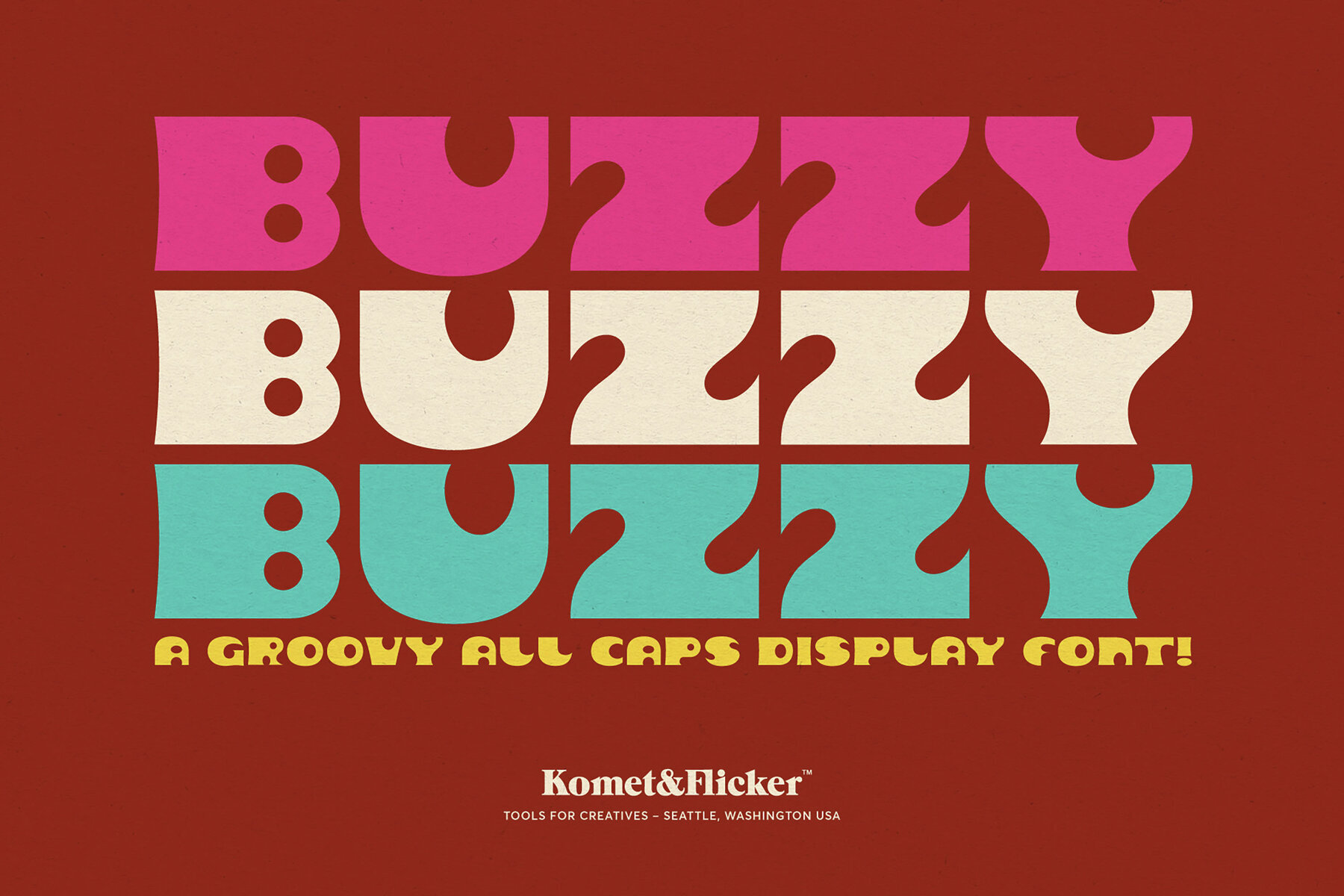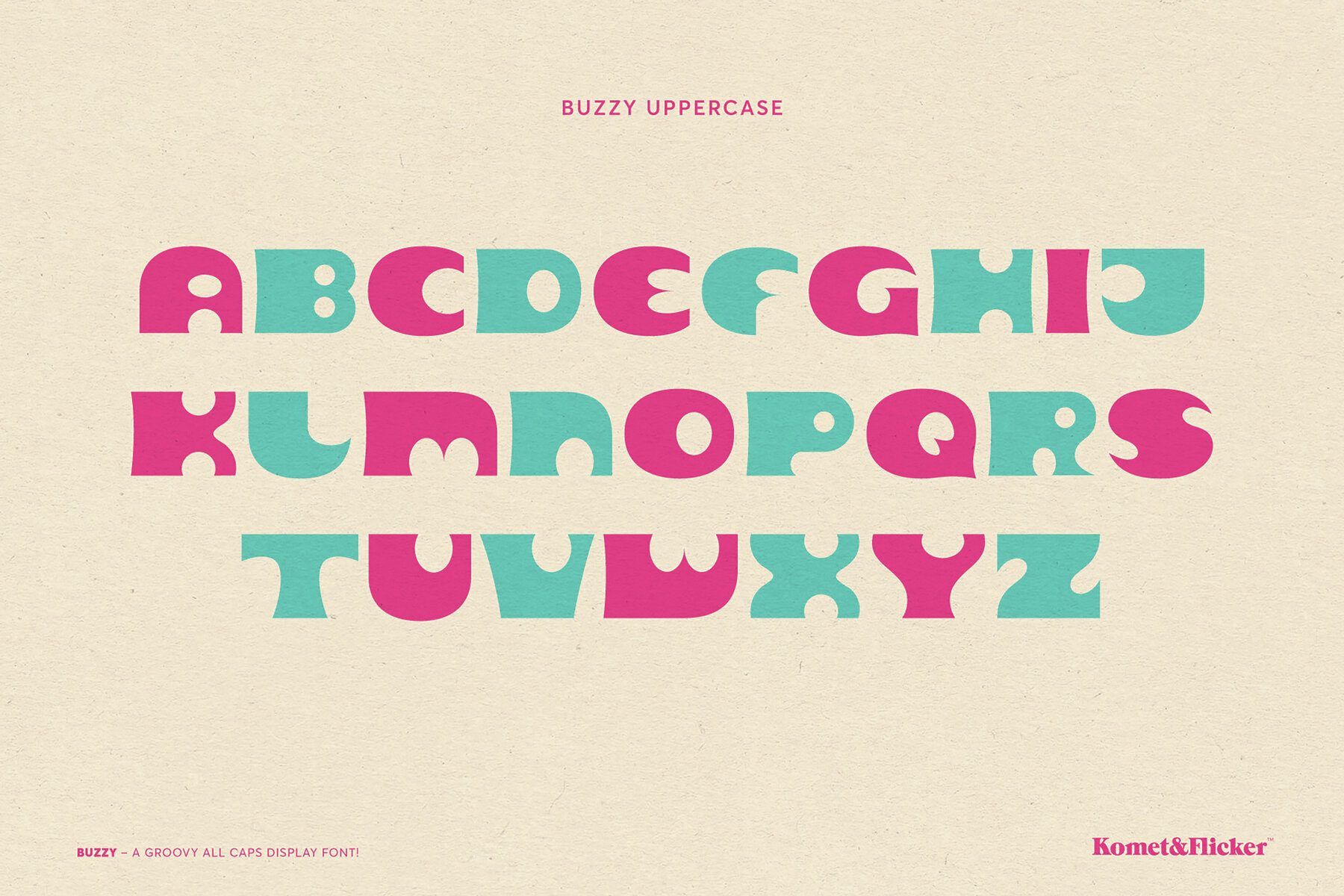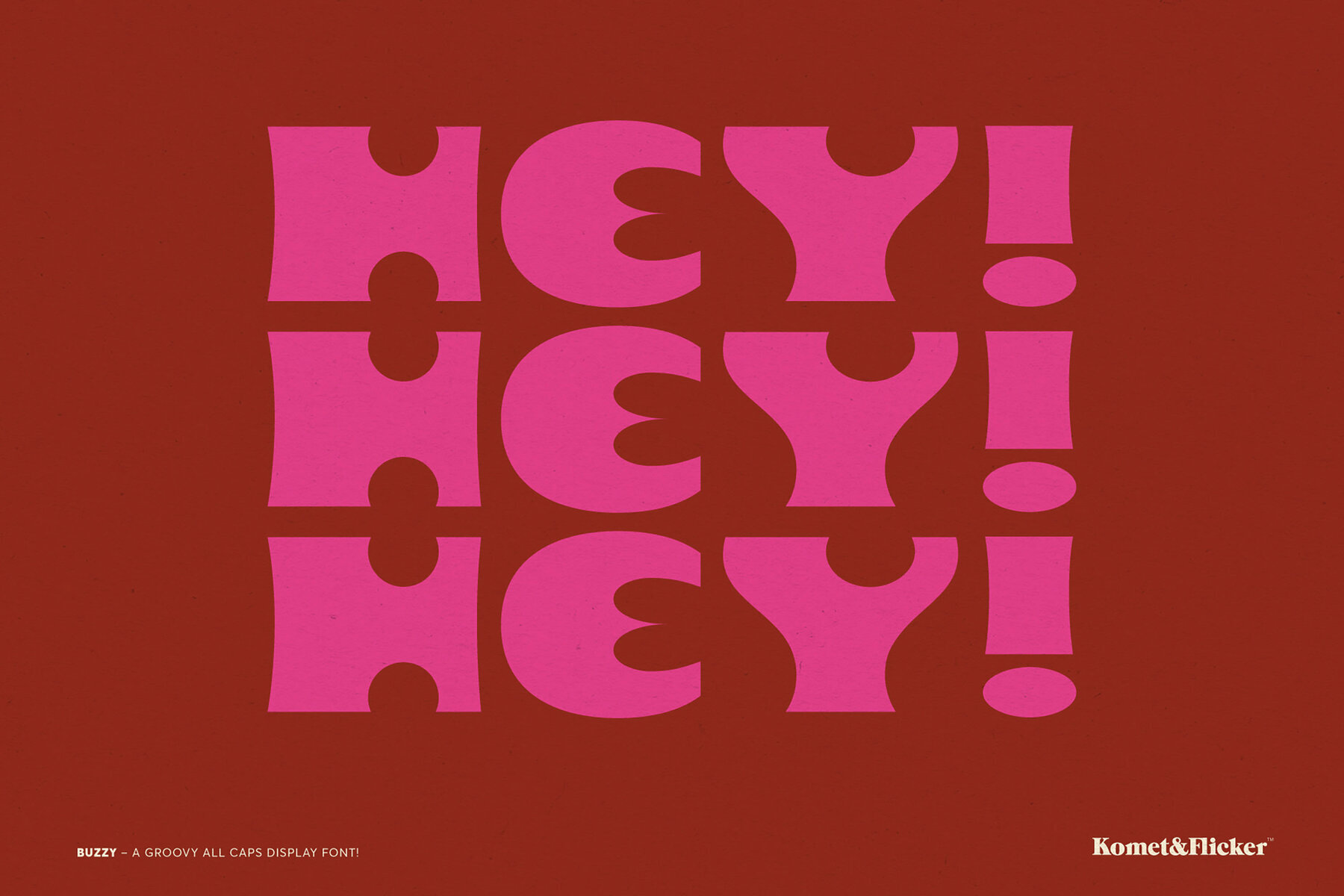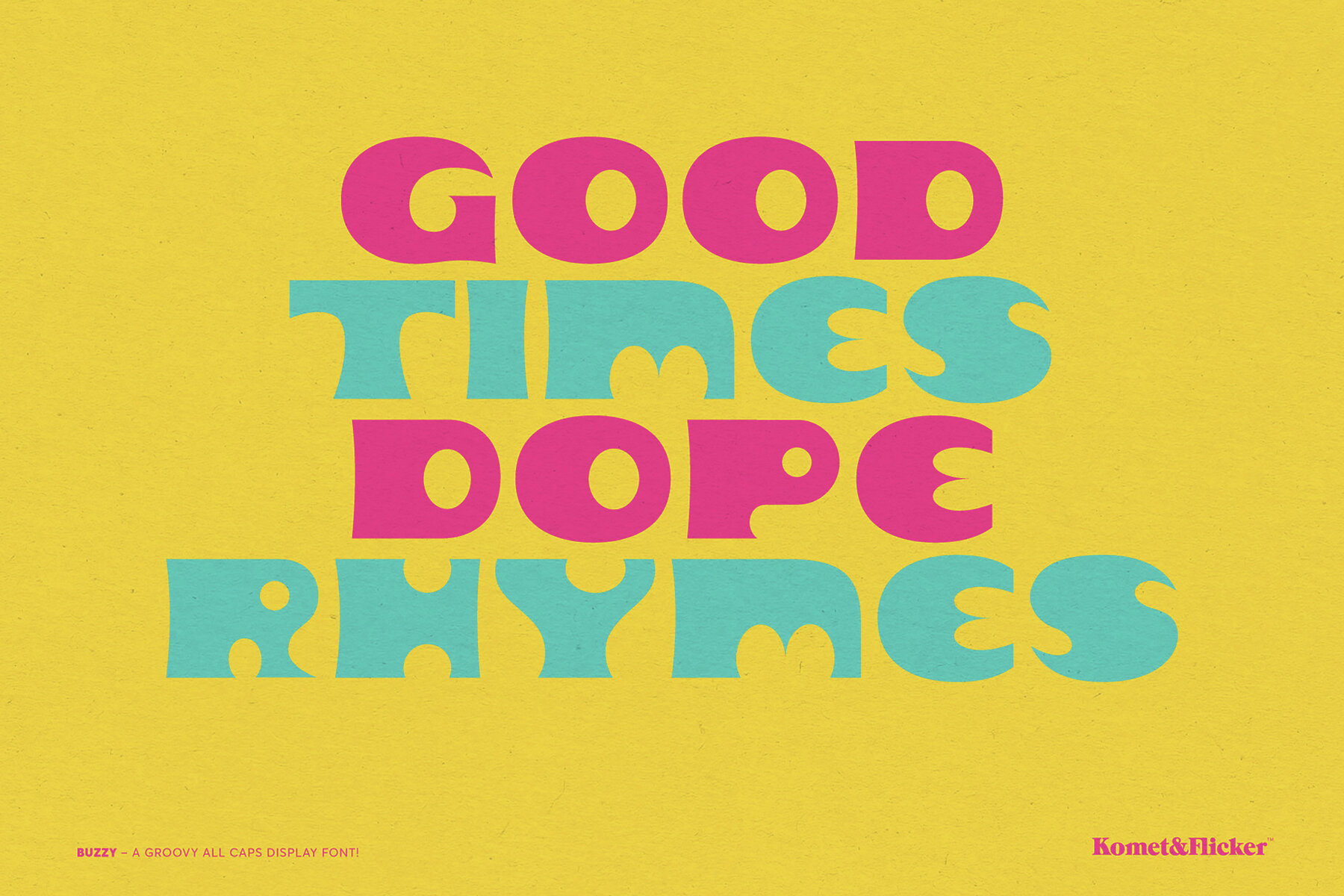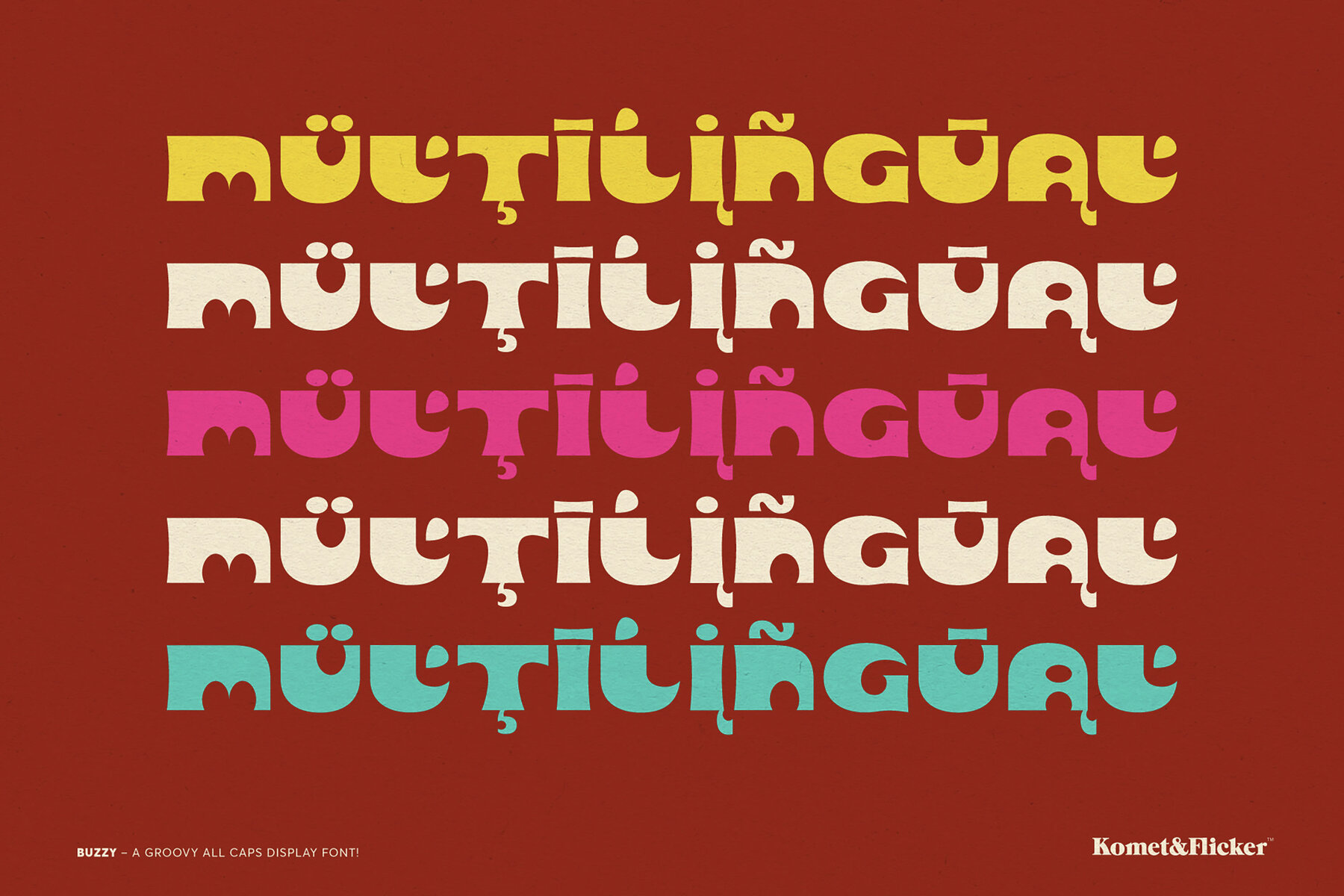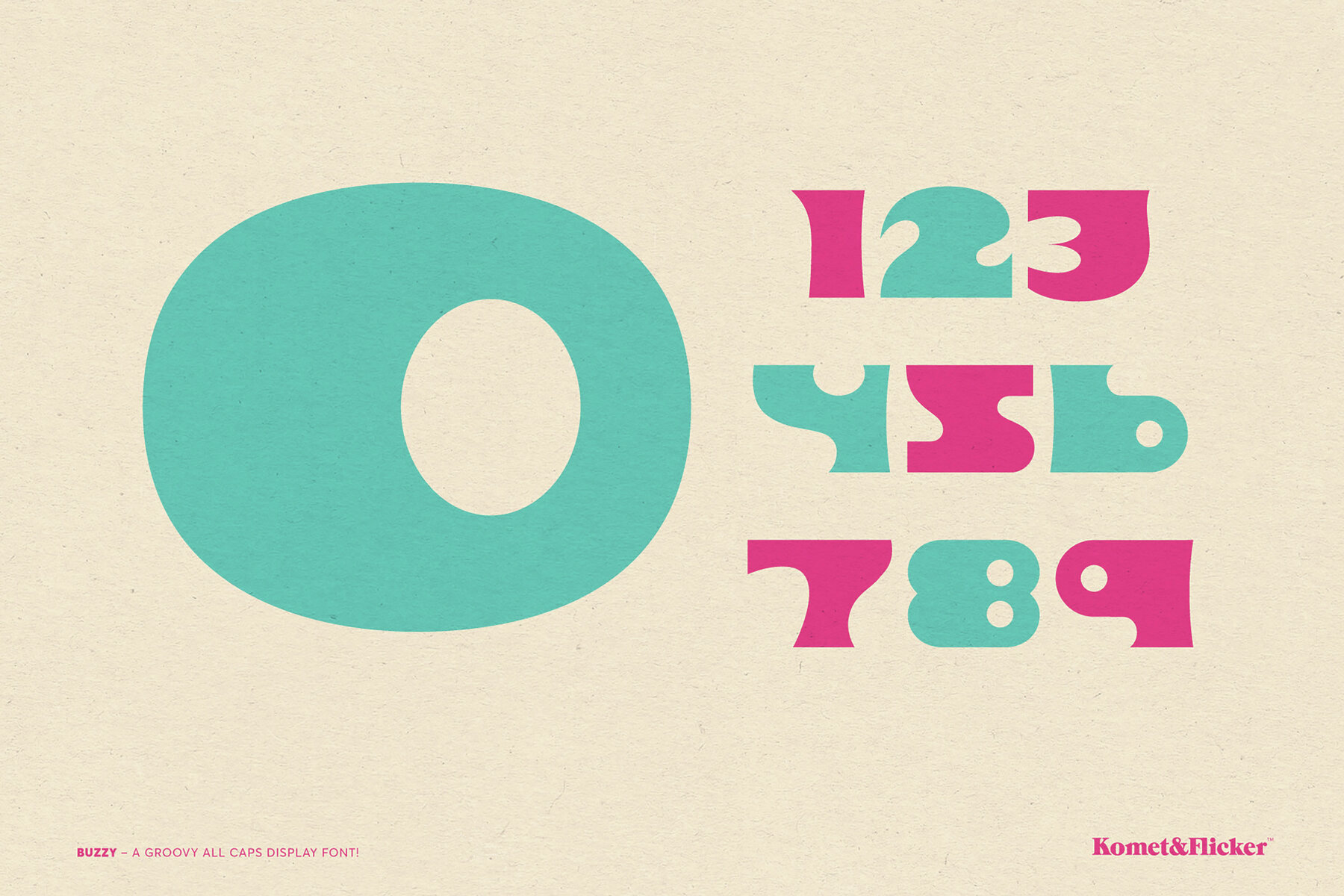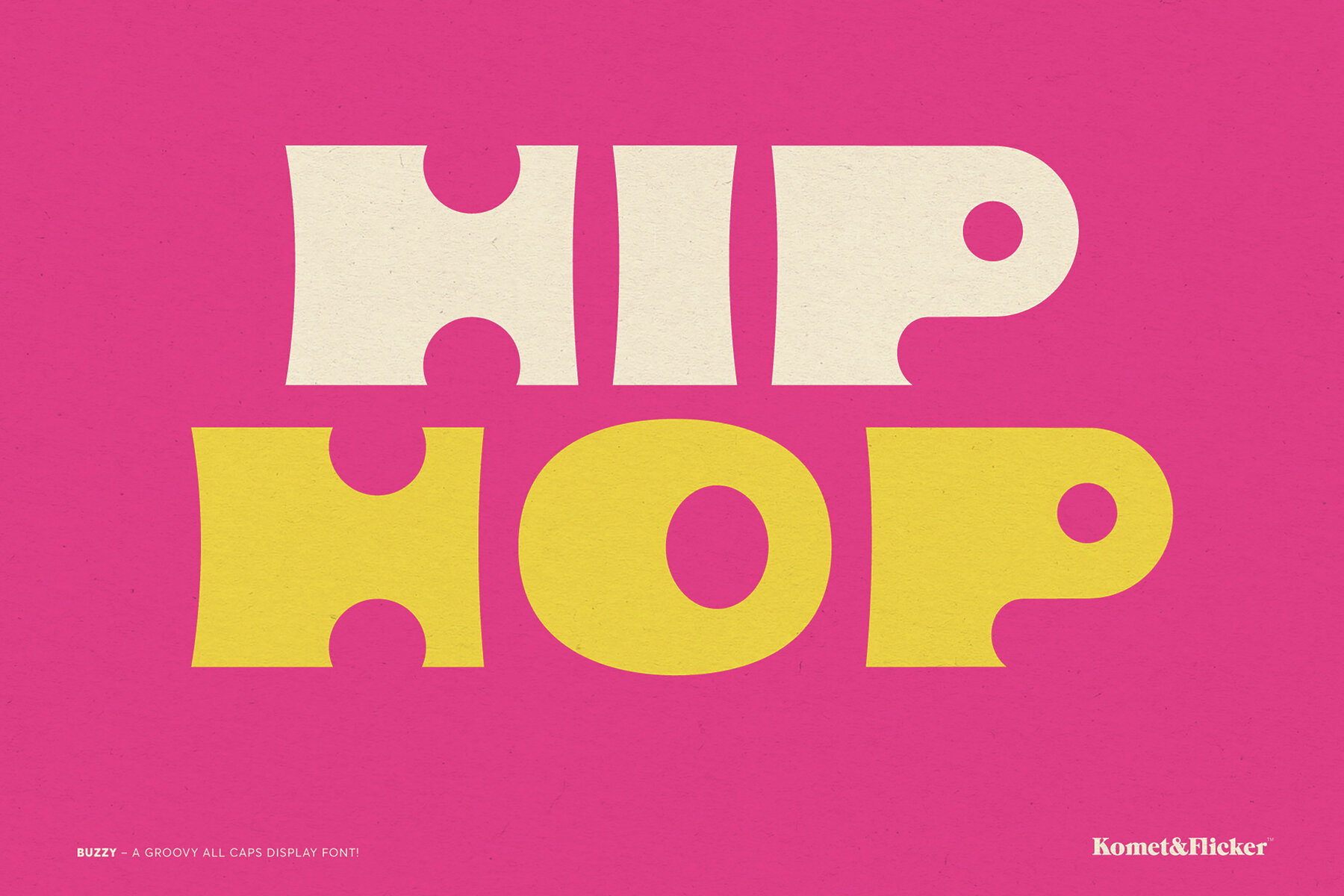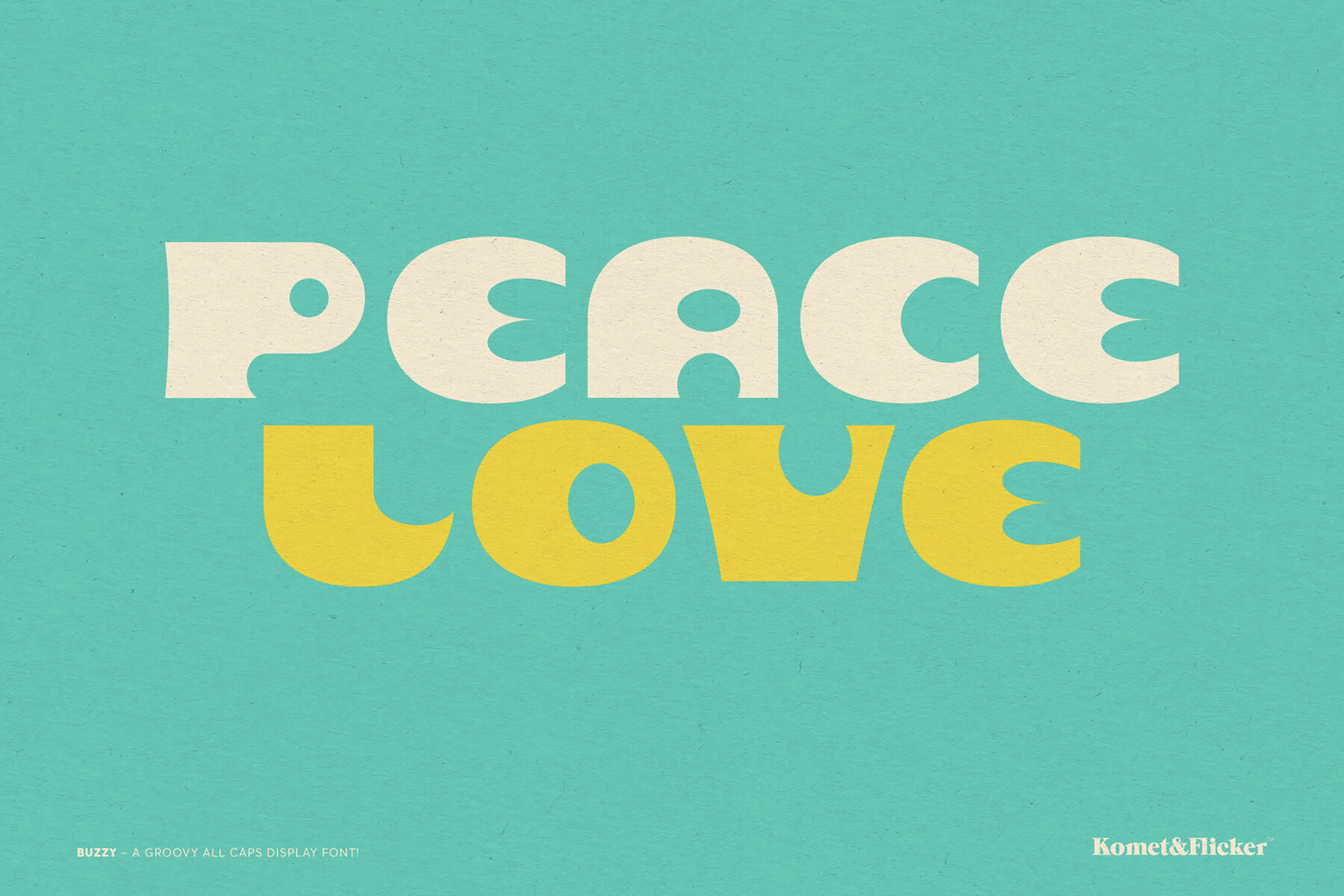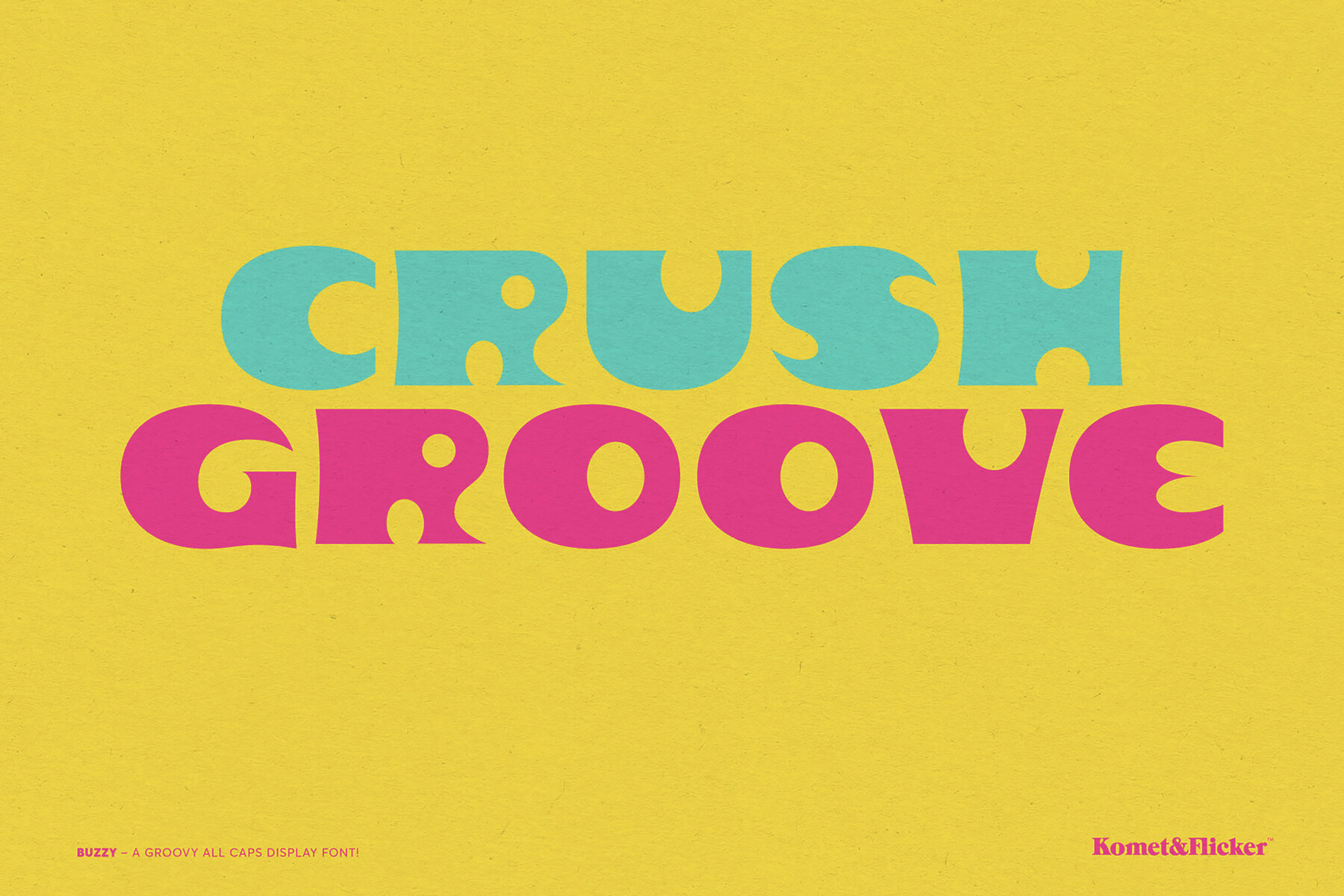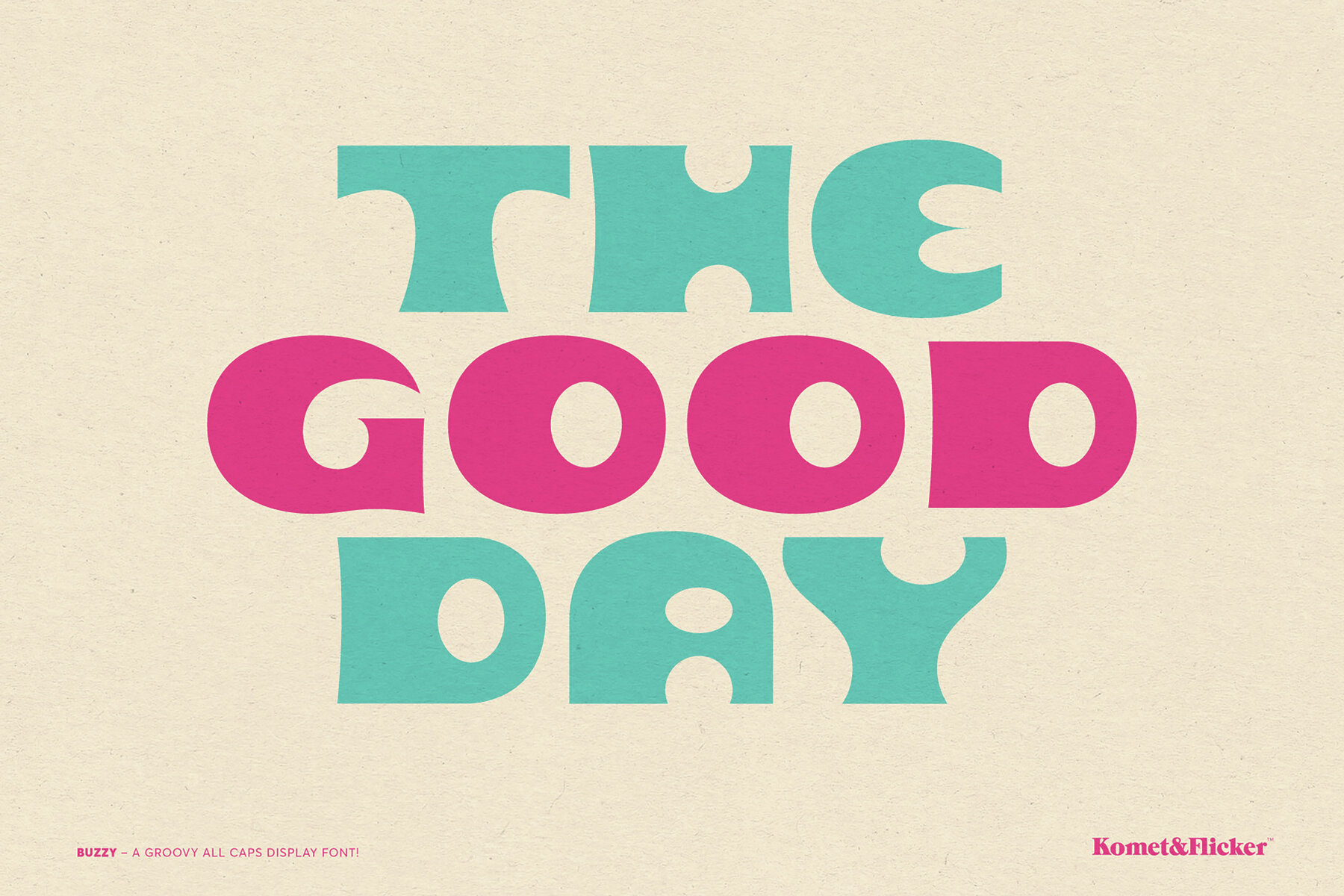
Buzzy Font
BUZZY Bold
Introducing BUZZY – the all caps display font that will have your designs grooving and buzzing with retro charm! Inspired by the vibrant spirit of the swinging 60s, BUZZY is a fun and lively typeface that captures the essence of that iconic era. With its playful curves, bold outlines, and a hint of psychedelic flair, BUZZY is perfect for any project that needs a splash of nostalgia and energy. THIS FONT INCLUDES